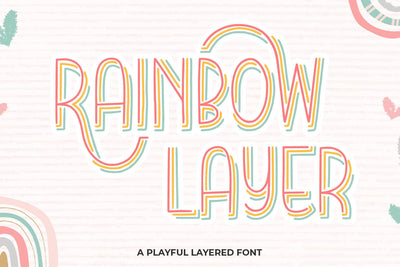
Rainbow Layer
introducing
RAINBOW LAYER
- a playful layered font -
RAINBOW LAYER is great for quotes, taglines, title notes, t-shirt designs, quotes, mugs, tote bag designs, cards, banners, social media, and anything about craft projects.
- All Uppercase
- Numeral
- Punctuation
Abo Daniel Studio